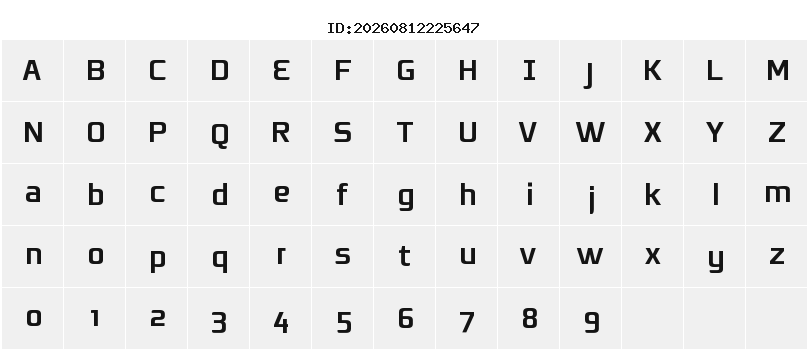
Resea Preview
• Font Name: Resea
About Resea.ttf
Resea.ttf is a modern, elegant sans-serif font designed for ultimate readability and visual harmony. Perfect for branding, headlines, web design, and print materials.